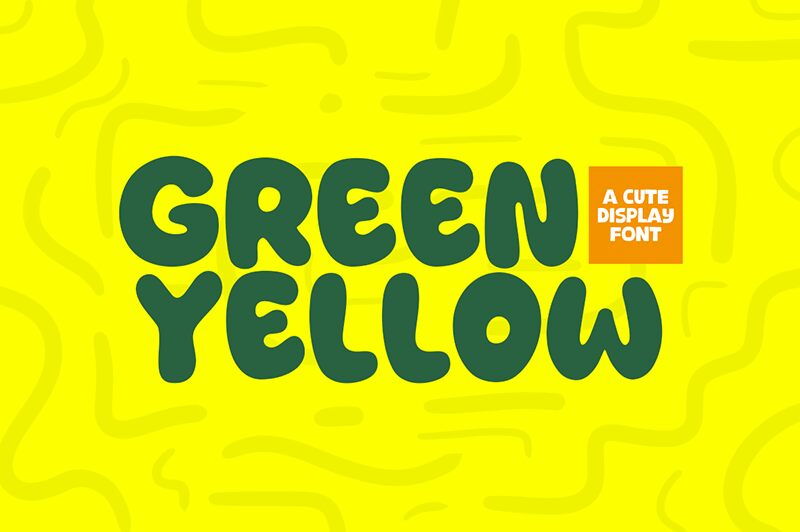
Green Yellow
Green Yellow font by Khurasan is a bold, cartoon-style display font that exudes playful charm. Its exaggerated and vibrant design makes it perfect for capturing attention in creative projects. The font's unique personality is ideal for use in children's books, animated graphics, and logo designs that require a fun and whimsical touch.
Green Yellow font shines in contexts where lightheartedness and imagination are key, offering designers a free font option with standout visual appeal. Easily downloaded and ready to elevate your next project, this striking typeface brings joy and energy to any design canvas.